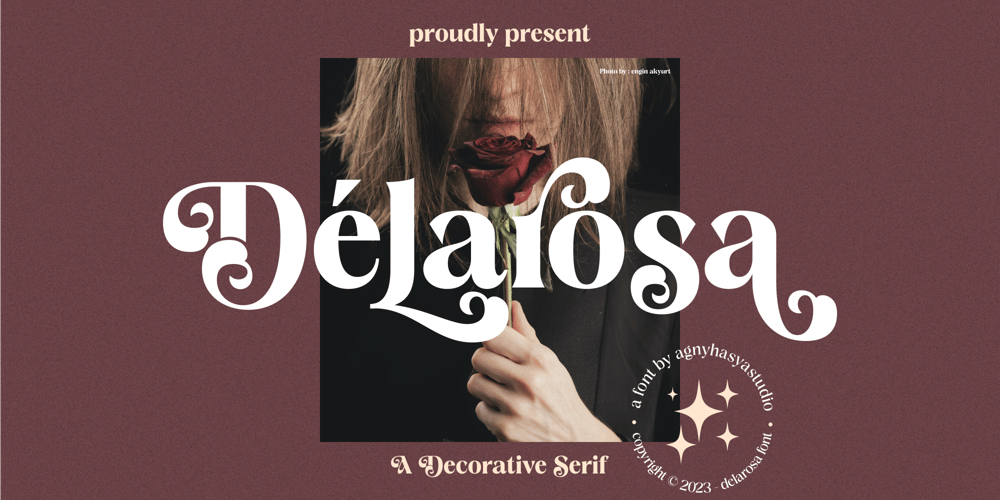
Delarosa
Delarosa font
Delarosa Font Family was designed by Firman Maulana and published by Agny Hasya Studio. Delarosa contains 4 styles and family package options. Delarosa is a Modern Serif Display Font with Retro Vintage Style yet Decorative, and Elegant Come in 2 (two) weights (regular & bold) including slants, and is created with Stylistic Alternates and Ligatures.Featured with Uppercase and Lowercase, Numeral and Punctuation, Multilingual Support, and Opentype Features.Perfect for your design projects like logos, branding, advertising, product designs, stationery, photography, art quotes, wedding designs, fashion designs, and more.